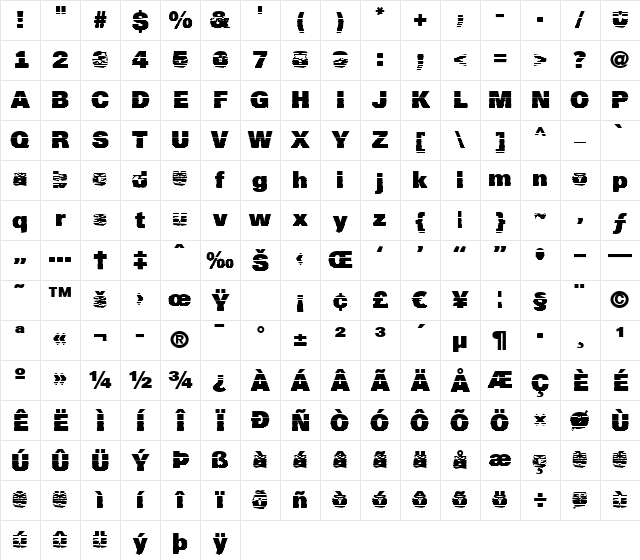
Complete a_ReportSansCmbStr Regular glyph index. Displaying only characters natively supported by a_ReportSansCmbStr Regular font.
a_ReportSansCmbStr is a composed and adaptable typeface that performs quietly and consistently across a wide range of design contexts.